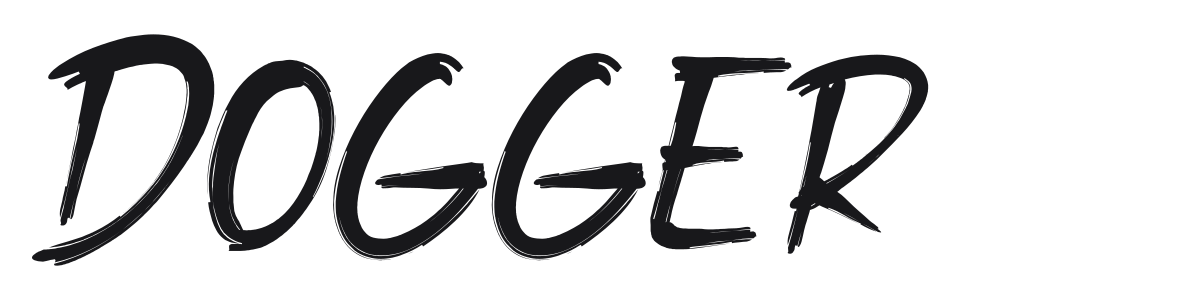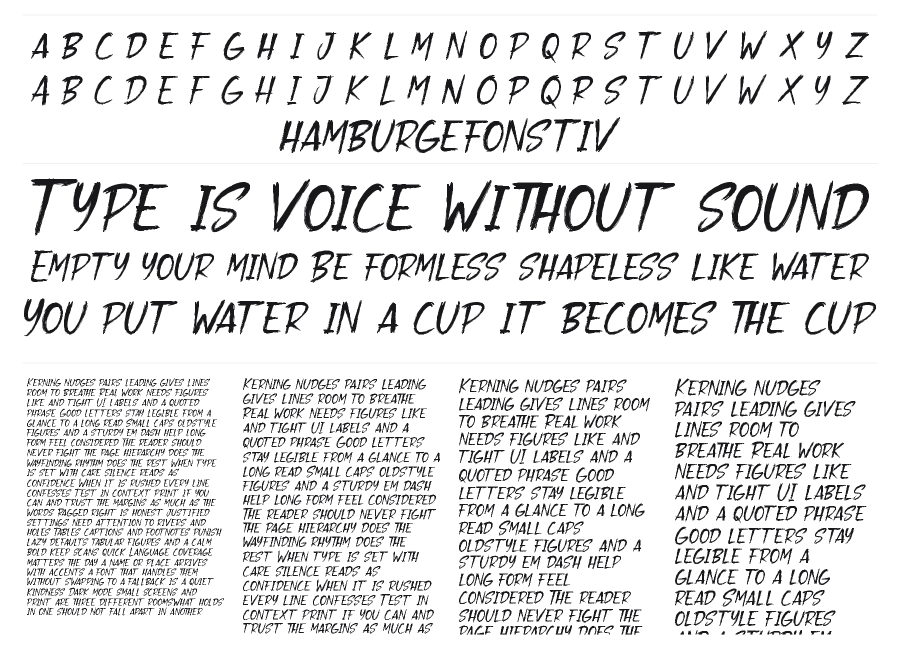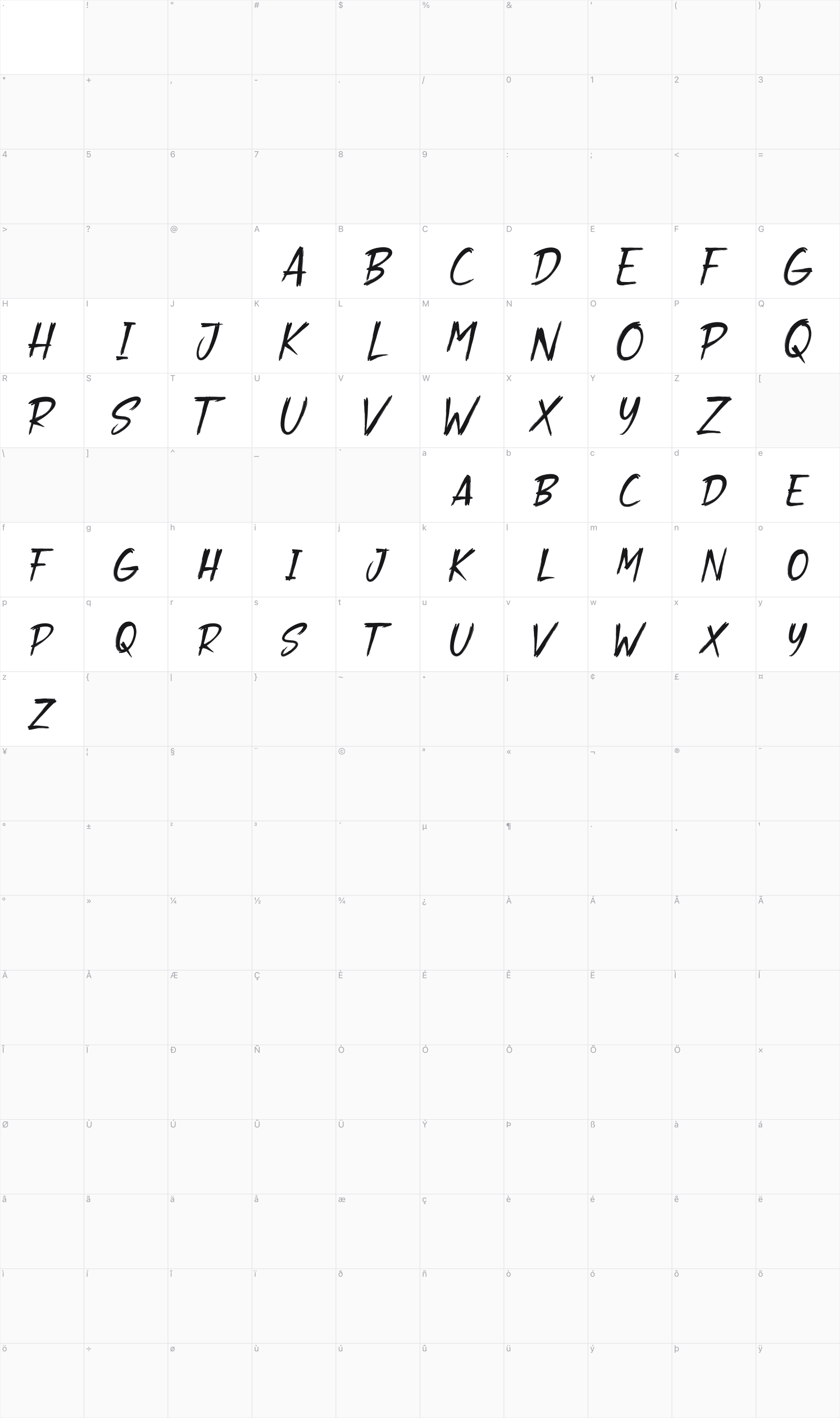
Dogger
Dogger is a rough, heavily italic brush script with thick-to-thin strokes and frayed, bristle-edged terminals that give it an unmistakably hand-made energy. The sharp forward lean and condensed proportions pack a lot of attitude into a tight space. It reads fast and loud, which is exactly what grunge-influenced branding and street-style editorial work demands.